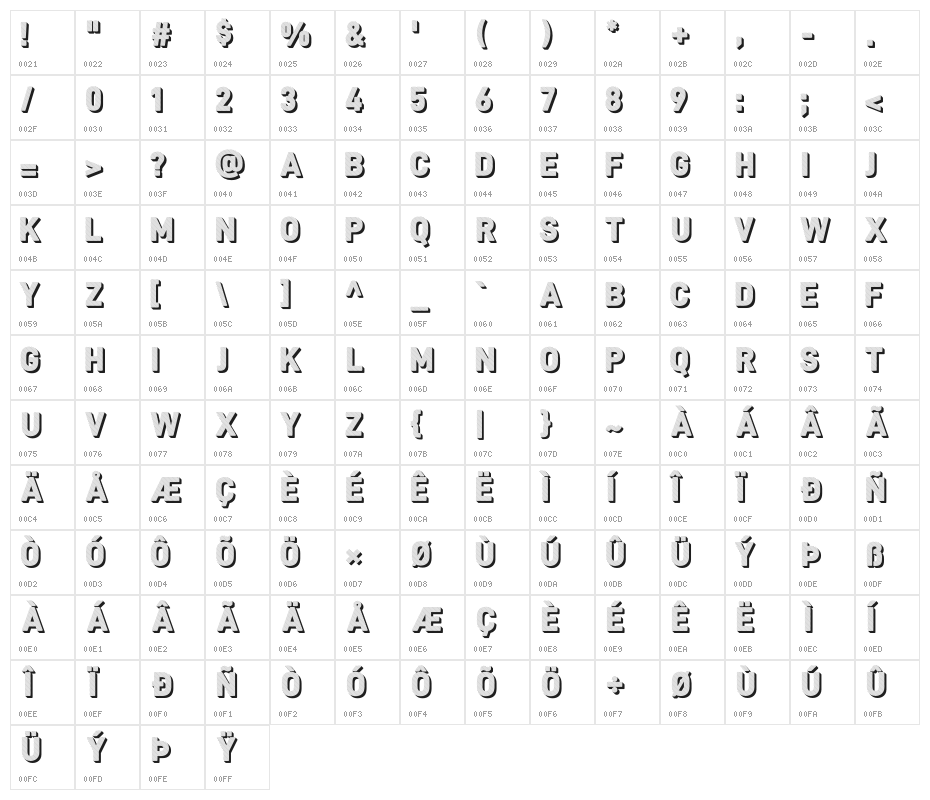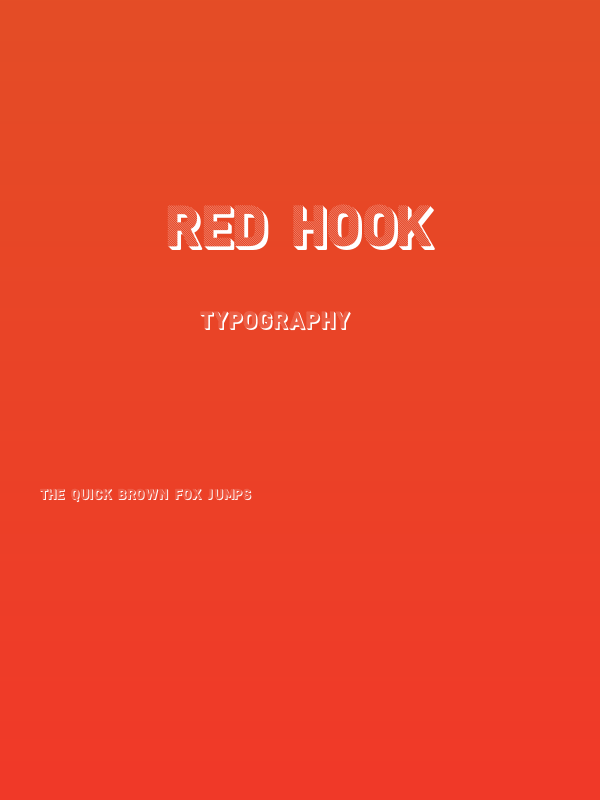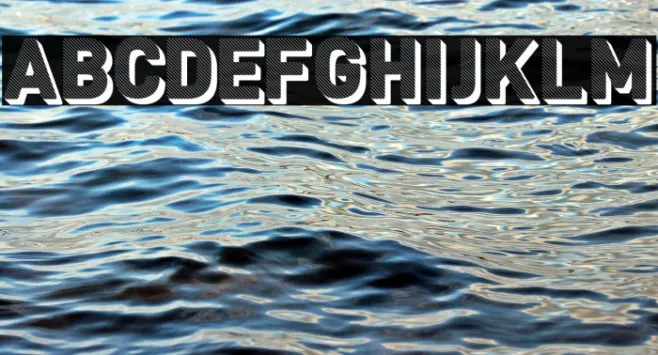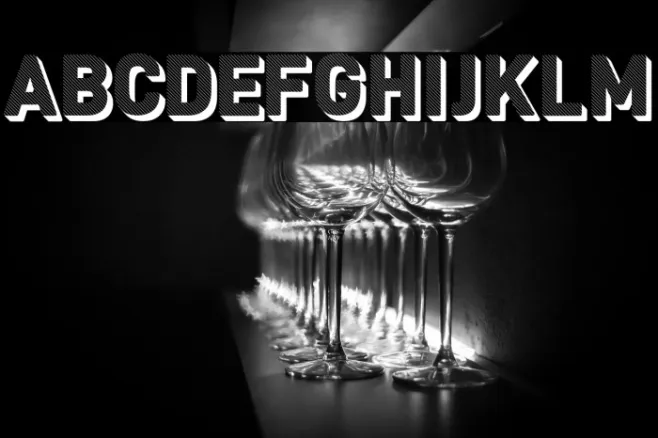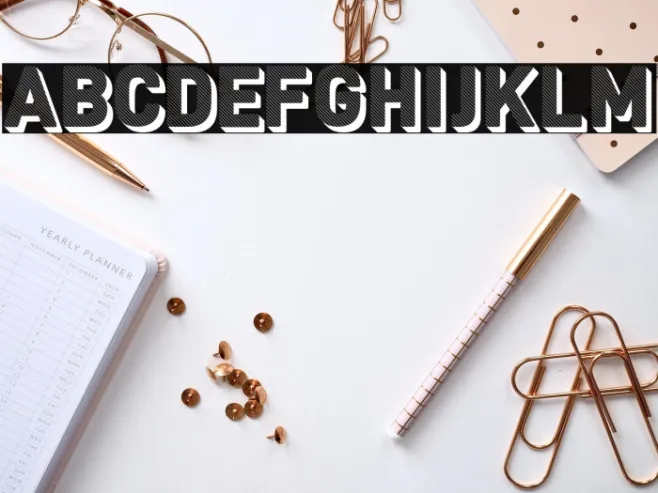
Red Hook Font
Red Hook Description
This font features a bold, three-dimensional appearance with a distinct diagonal line pattern across each character, giving it a textured and dynamic look. The letters are uppercase and have a strong, impactful presence, making them ideal for attention-grabbing designs. The numbers and special characters follow the same stylistic pattern, ensuring consistency across all elements. The shadow effect adds depth, enhancing the overall visual appeal. This font is perfect for projects that require a bold statement and a modern, edgy feel.